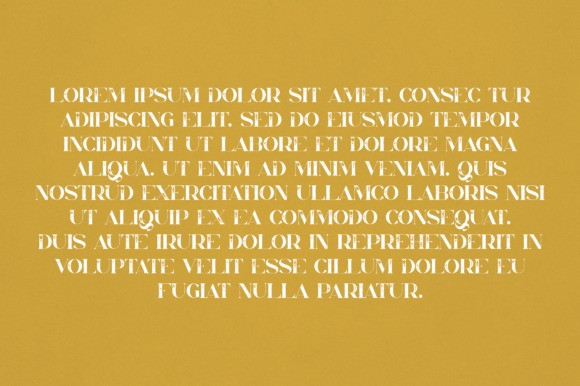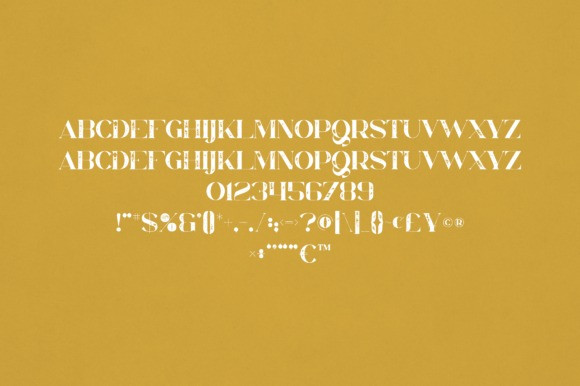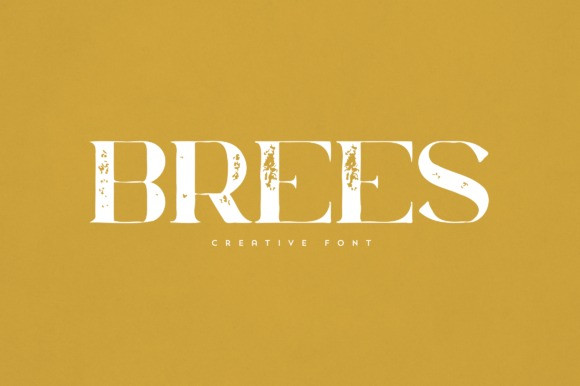
Brees Font
Brees Font is an elegant and versatile font that will make your typography truly unique! It will enchant every logo, branding, headline, or plain text!